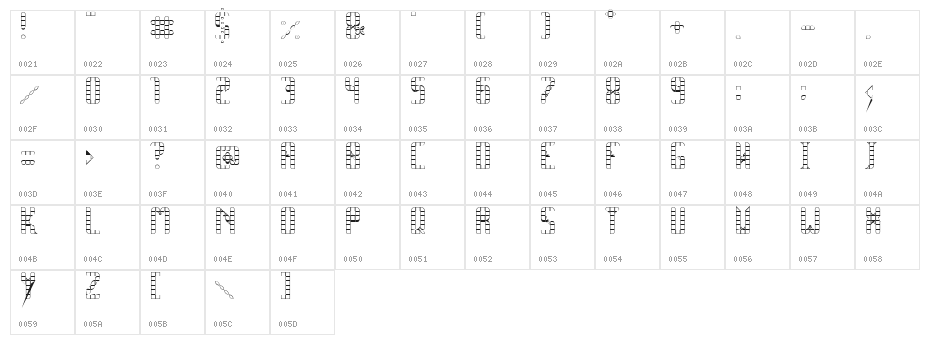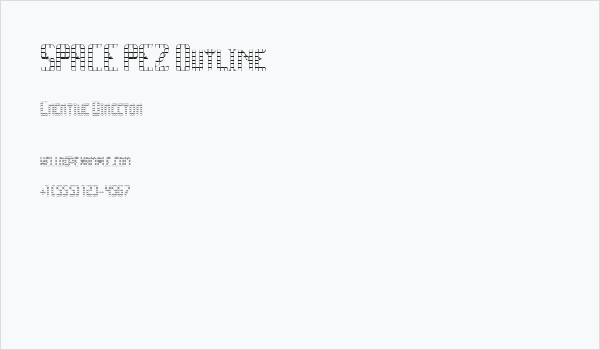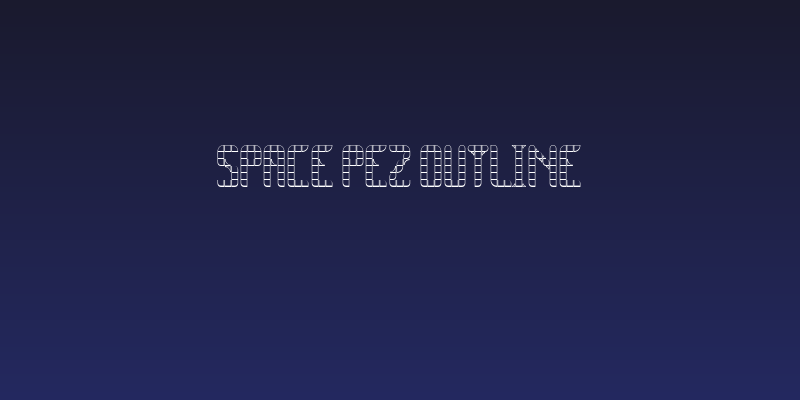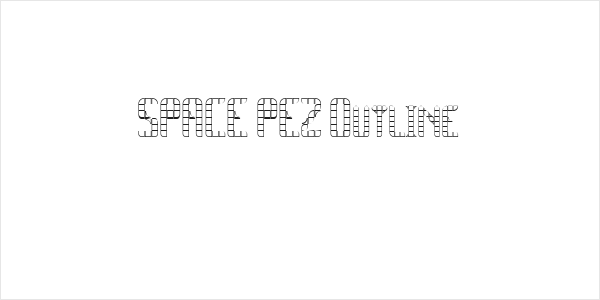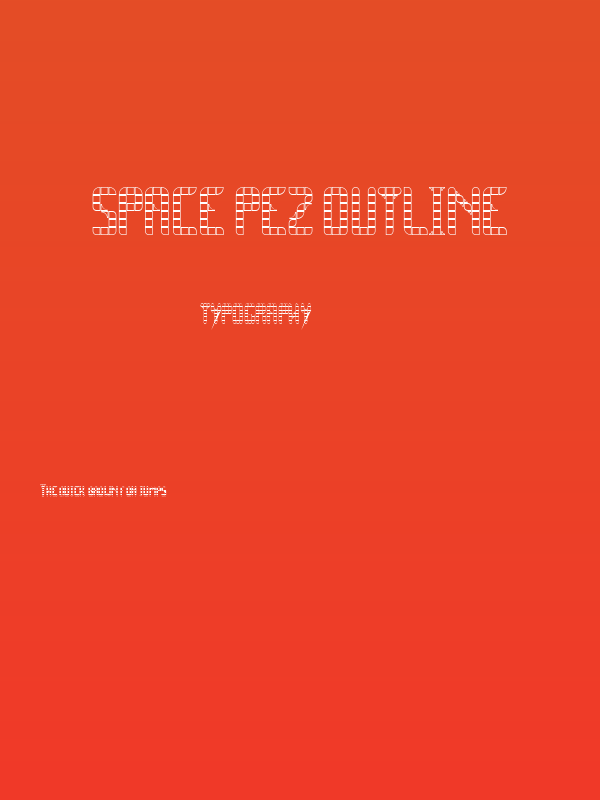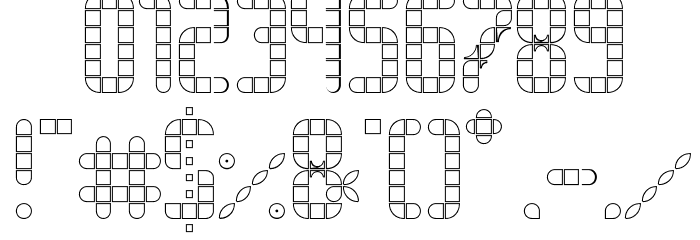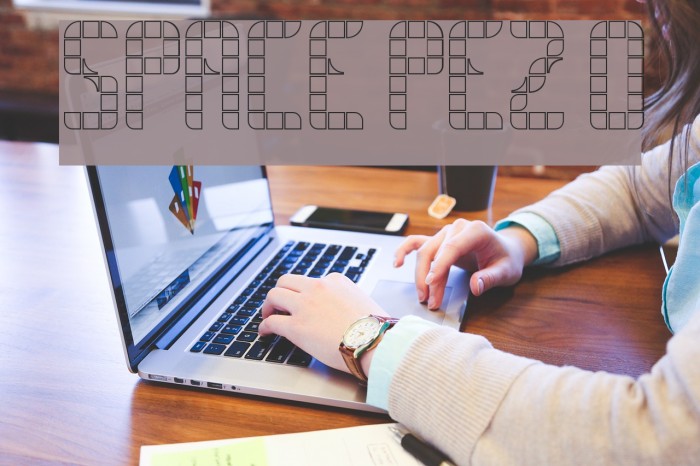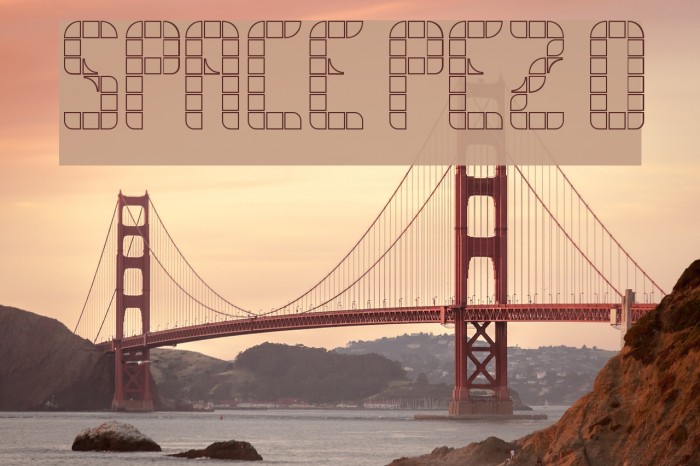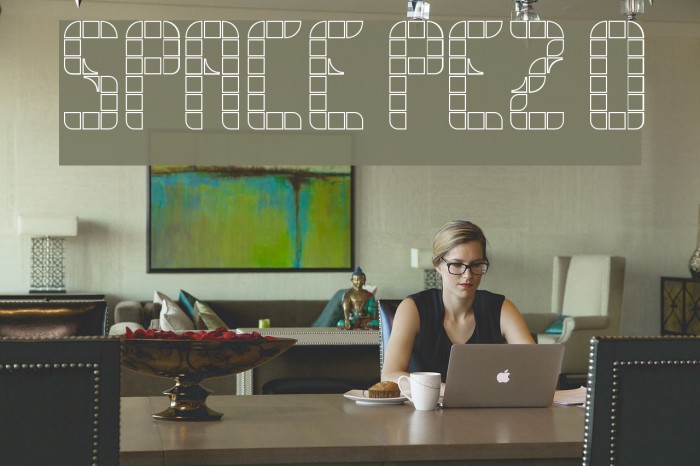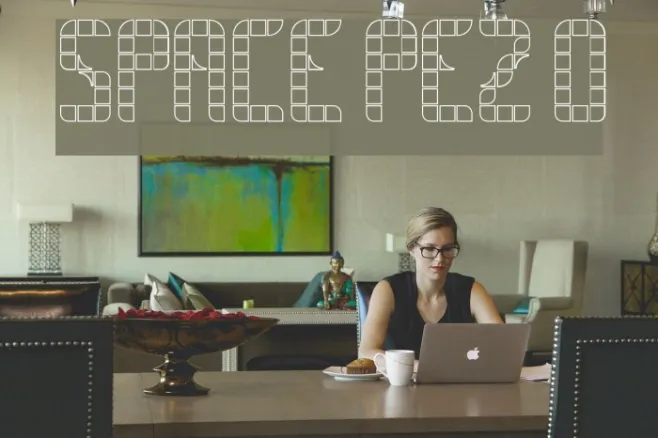
SPACE PEZ Outline Font
SPACE PEZ Outline Description
This font features a unique, futuristic design with an outline style that emphasizes geometric shapes. Each character is constructed with a grid-like pattern, creating a sense of depth and dimension. The letters are uppercase and lowercase, with numerals and a set of special characters. The style is reminiscent of digital or sci-fi themes, making it stand out with its bold, structured appearance. The font's outline nature gives it a lightweight feel while maintaining a strong visual presence. It's perfect for projects that require a modern and tech-inspired aesthetic.
| Proposed Projects | Ideal for tech-themed posters, video game titles, futuristic branding, and digital artwork. |